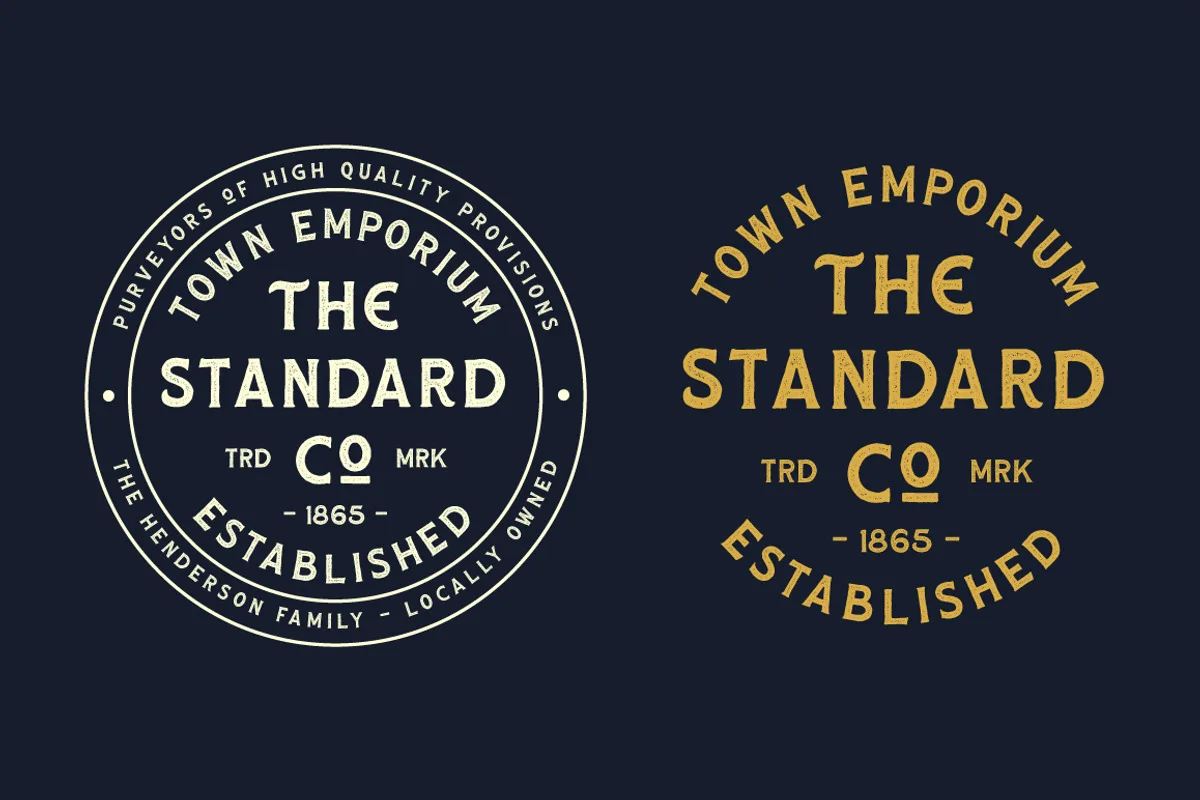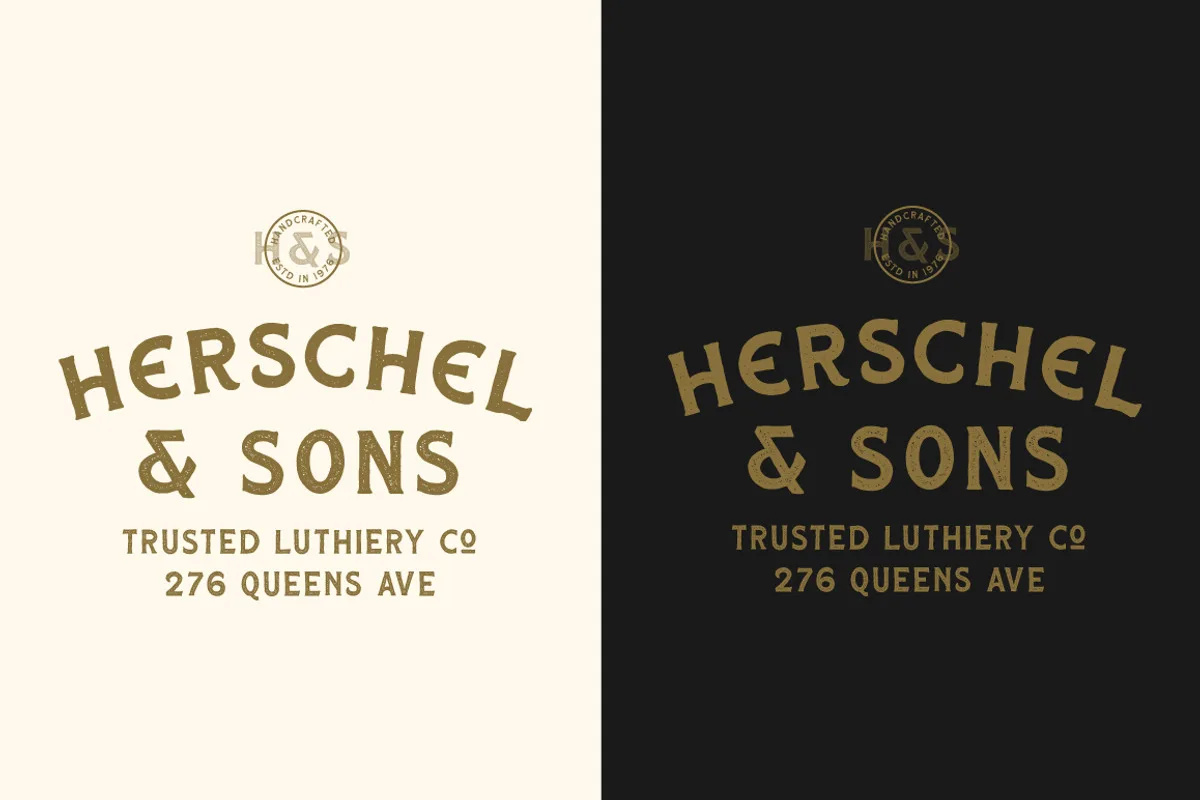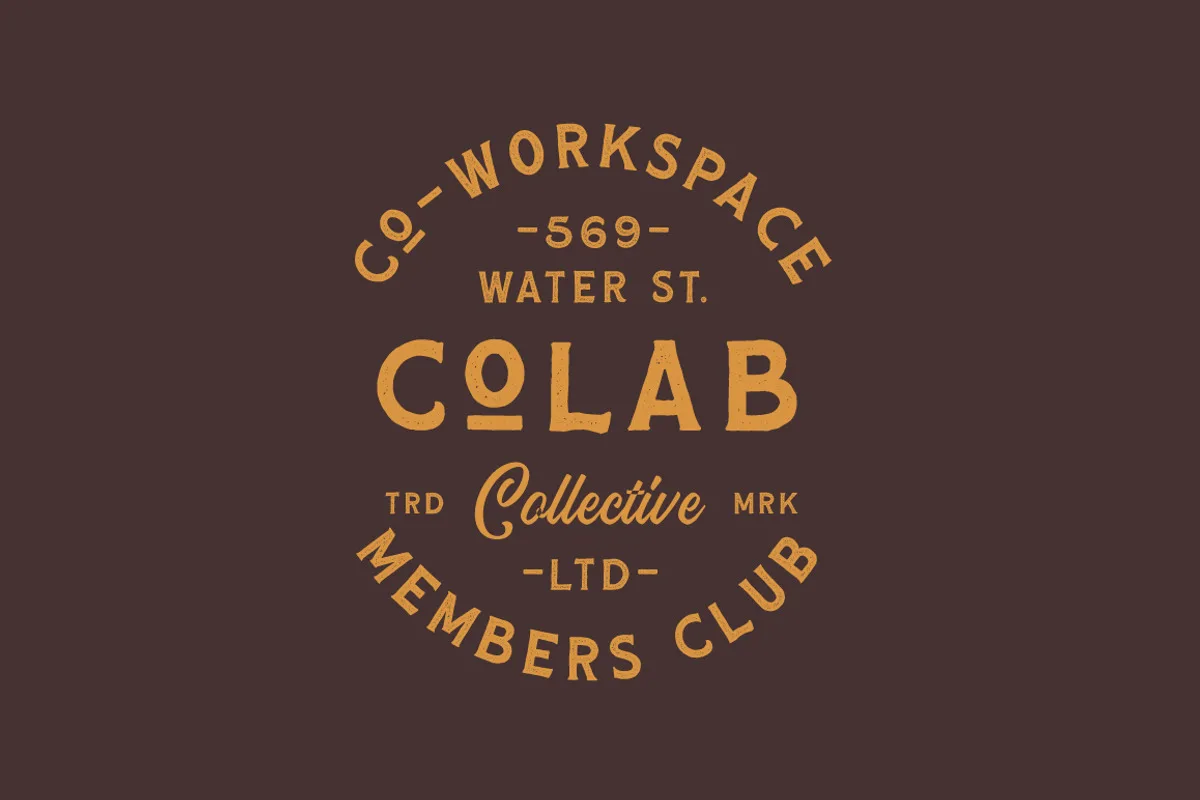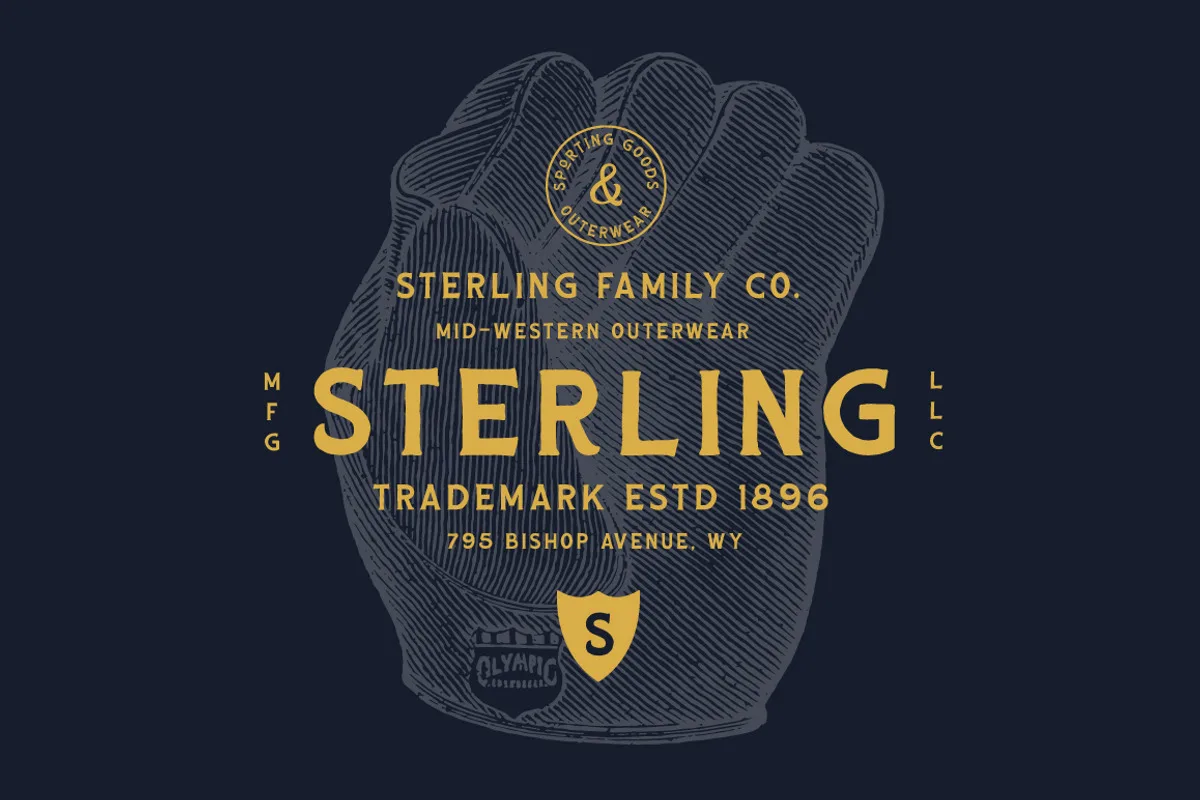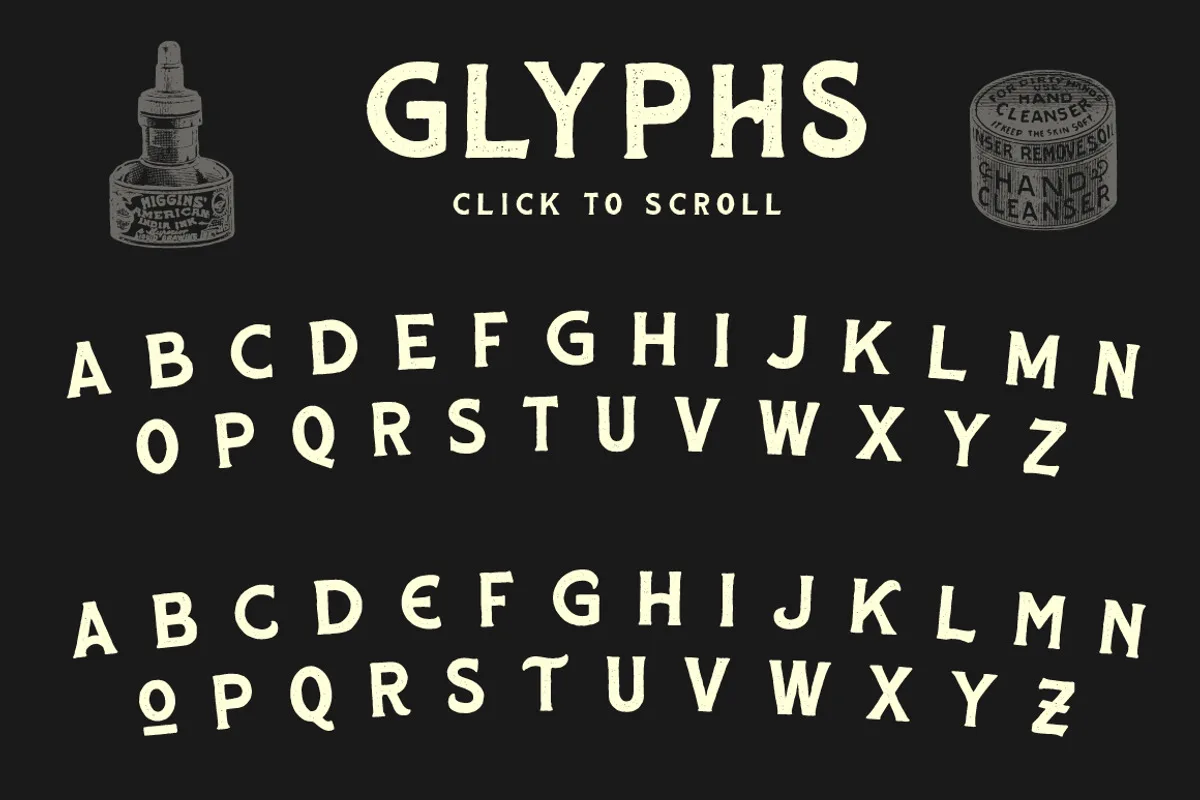
Huscon is a Vintage Spur Serif typeface family. Huscon includes 5 font files. It is a great typeface for achieving an authentic vintage aesthetic as seen in the display images. Use the Type Tester below to check out the unique differences between each of the fonts.